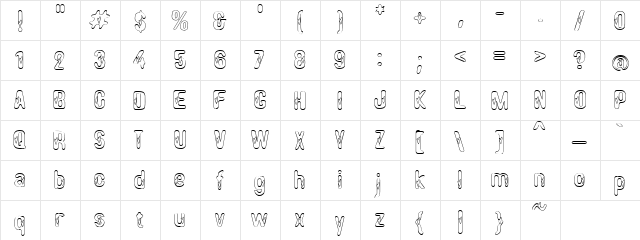
PC Bubble Hearts Regular
Design Context for PC Bubble Hearts Typeface
PC Bubble Hearts has an approachable, lighthearted character — its loose, expressive forms are well-suited to children's content, casual branding, and fun-first design.
Font Pairing: Pairs well with a rounded or humanist sans for body copy, maintaining the friendly tone without relying on PC Bubble Hearts to carry extended reading.
Pro Tip: Avoid using PC Bubble Hearts for long passages of text — it works best for headlines, labels, and short calls to action.